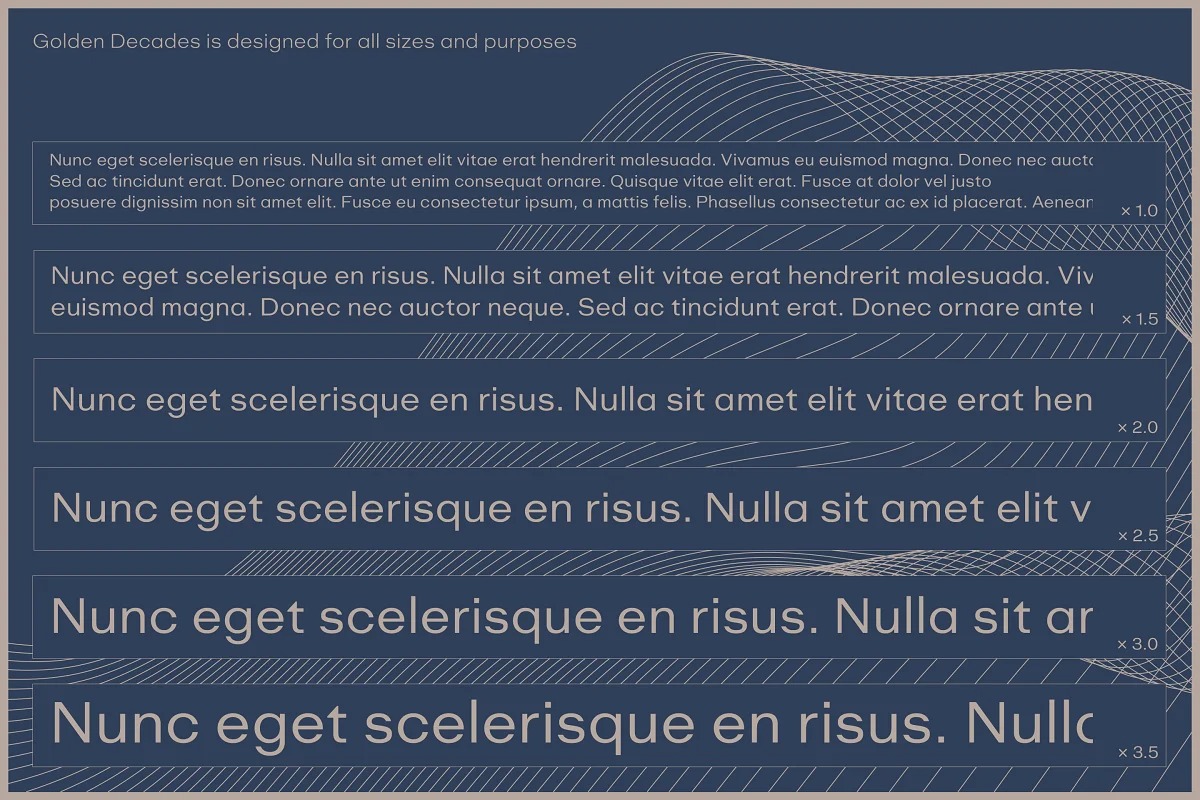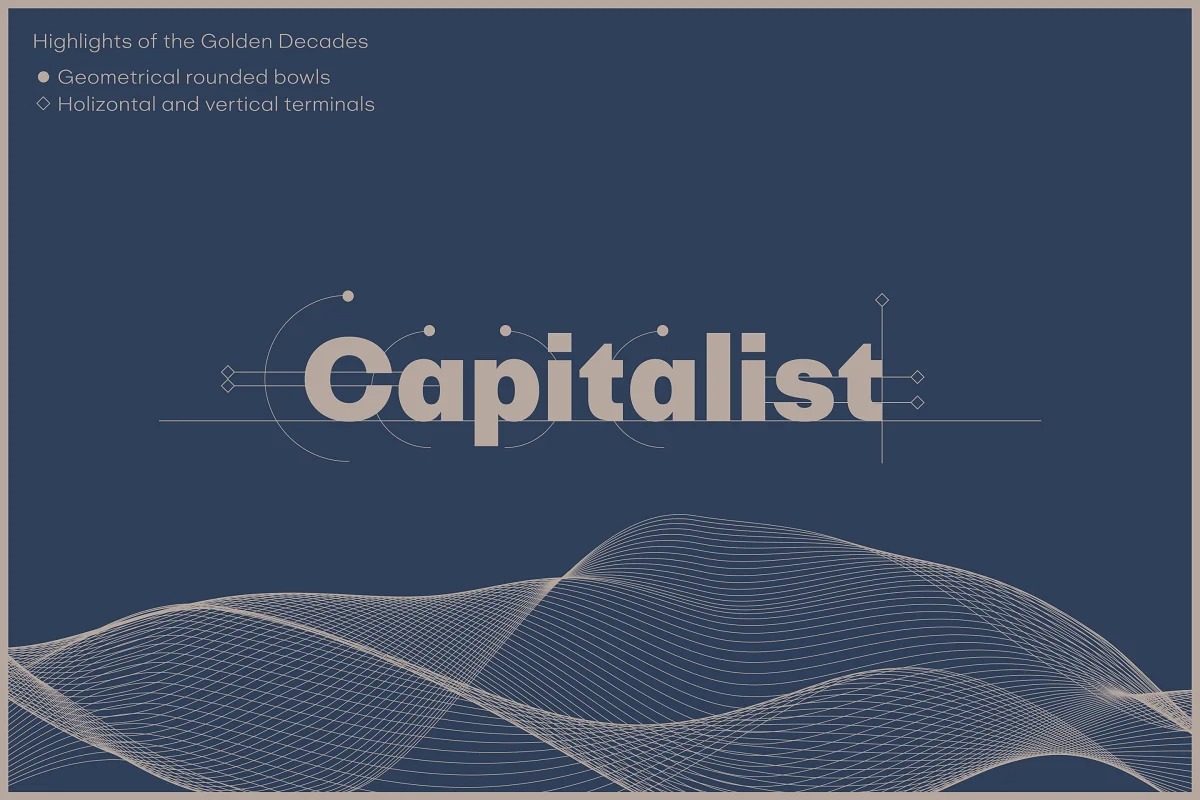
Golden Decades Font Family
Golden Decades Sans Serif Font
This typeface designed by Dharma Type is a geometric sans serif font family with varied round characters. Blending a touch of retro and modern qualities, this typeface is clean and neutral but not boring. It’s professional yet unique and fun.
Golden Decades consists of 8 weights and their matching Italics for a wide range of usages. Farther, Golden Decades is supporting international Latin languages and basic Cyrillic languages including Basic Latin, Western Europe, Central and South-Eastern Europe. Also, Golden Decades covers Mac Roman, Windows1252, Adobe1 to 3. This wide range of international characters expands the capability of your works. Lowercase “a” has OpenType stylistic alternate for advanced typography.